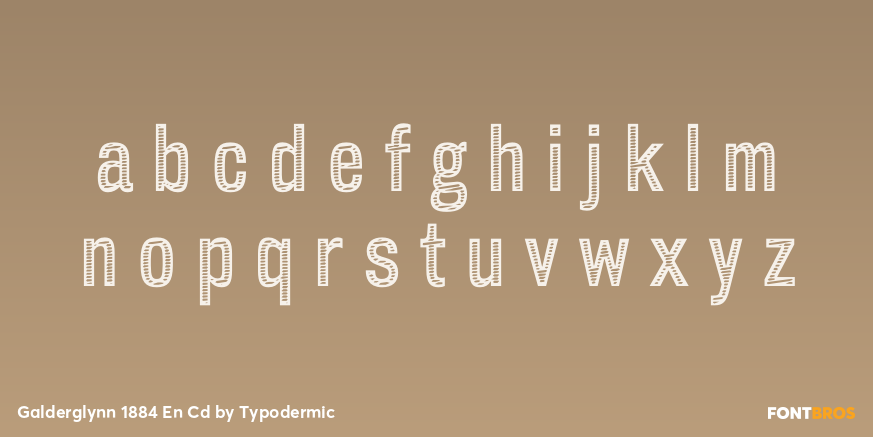
Galderglynn 1884 En Cd
Galderglynn 1884 Engraved Condensed cuts closely spaced horizontal hatch lines through the dark strokes of the family’s condensed letterforms. The engraved texture changes the surface without obscuring the underlying nineteenth-century grotesque, including its distinct uppercase and lowercase forms. Narrow, flat-sided proportions let long names and descriptive phrases occupy slim spaces while the internal linework supplies period detail.
Use Engraved Condensed for bottle side panels, neck labels, book spines, narrow cartons, museum timeline headings, ticket graphics, and vertical exhibition panels. It is strongest at display sizes where the horizontal cuts remain clear, especially for product names, dates, edition labels, and short headings. Pair it with a plain condensed weight for ingredients, captions, schedules, or other small supporting text.